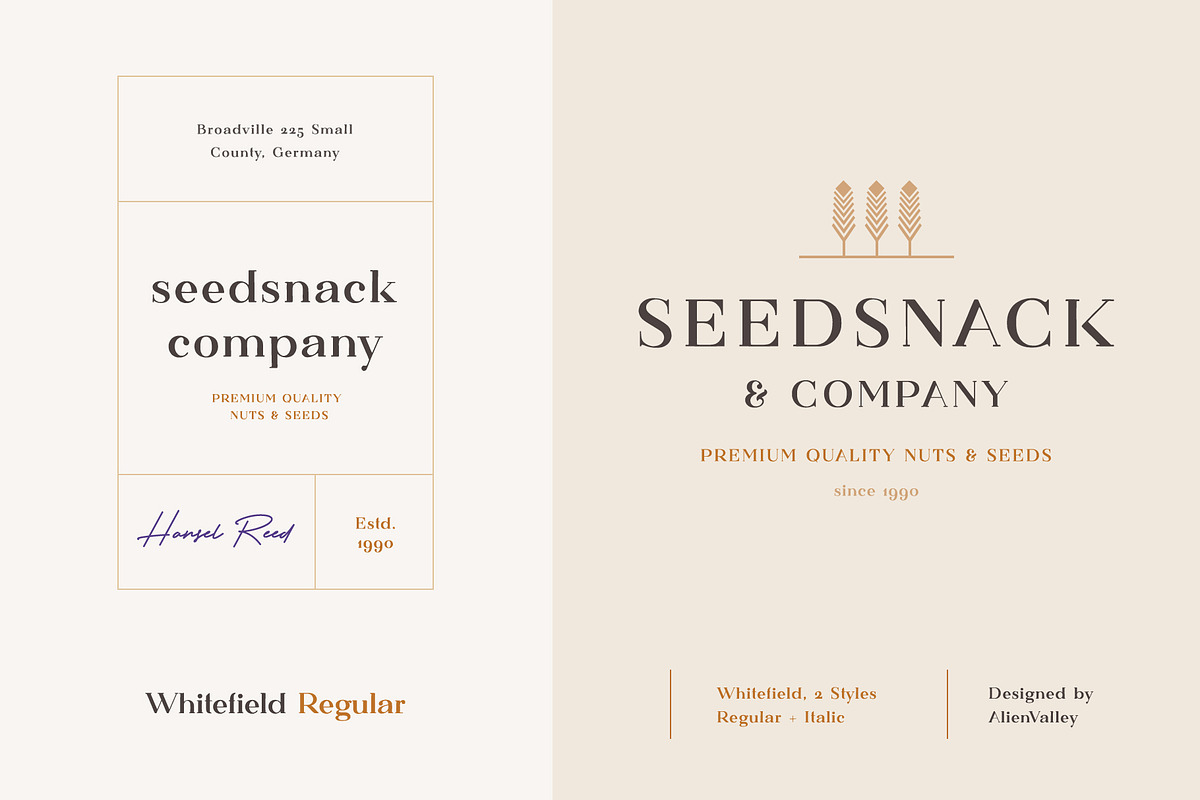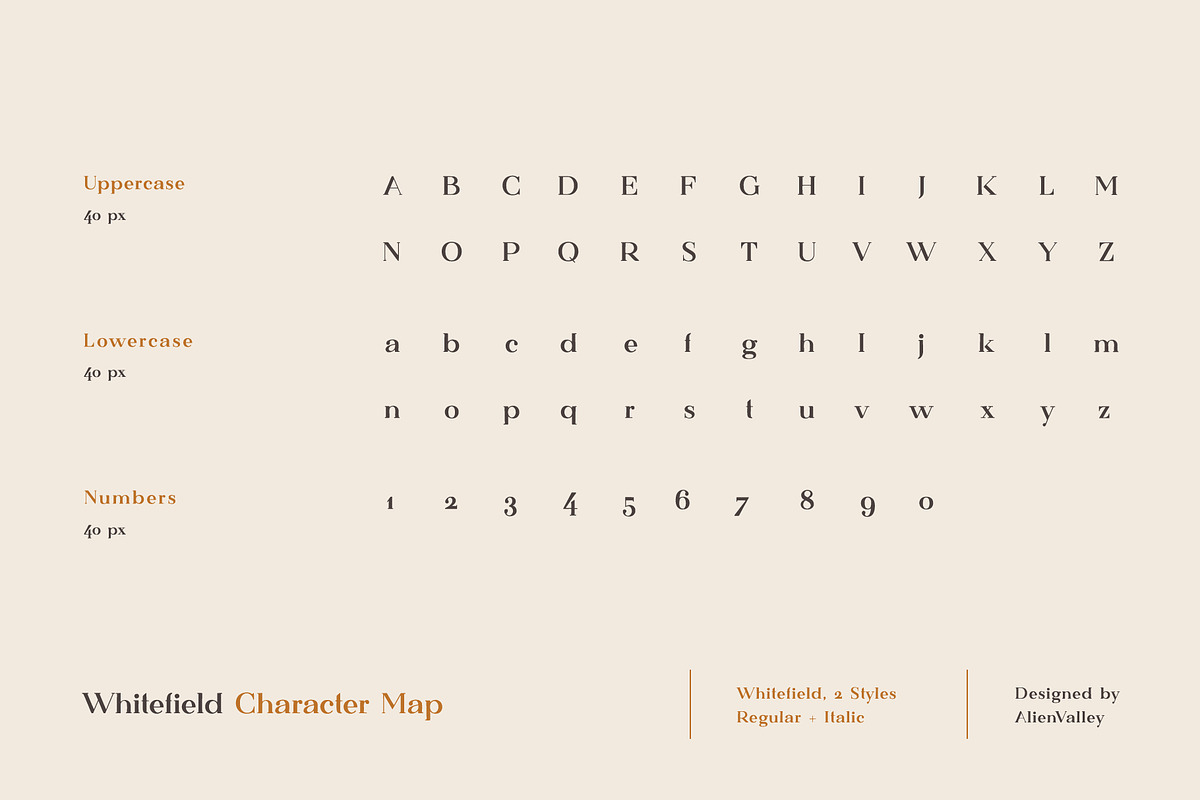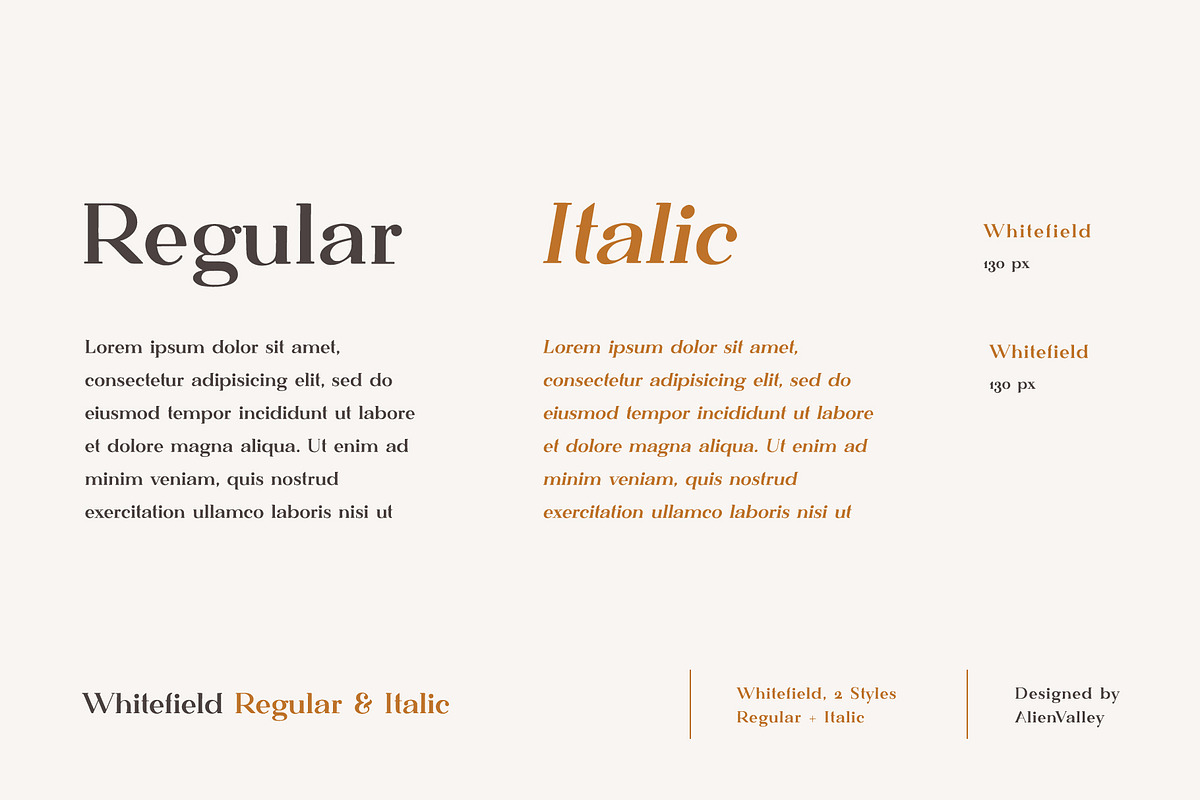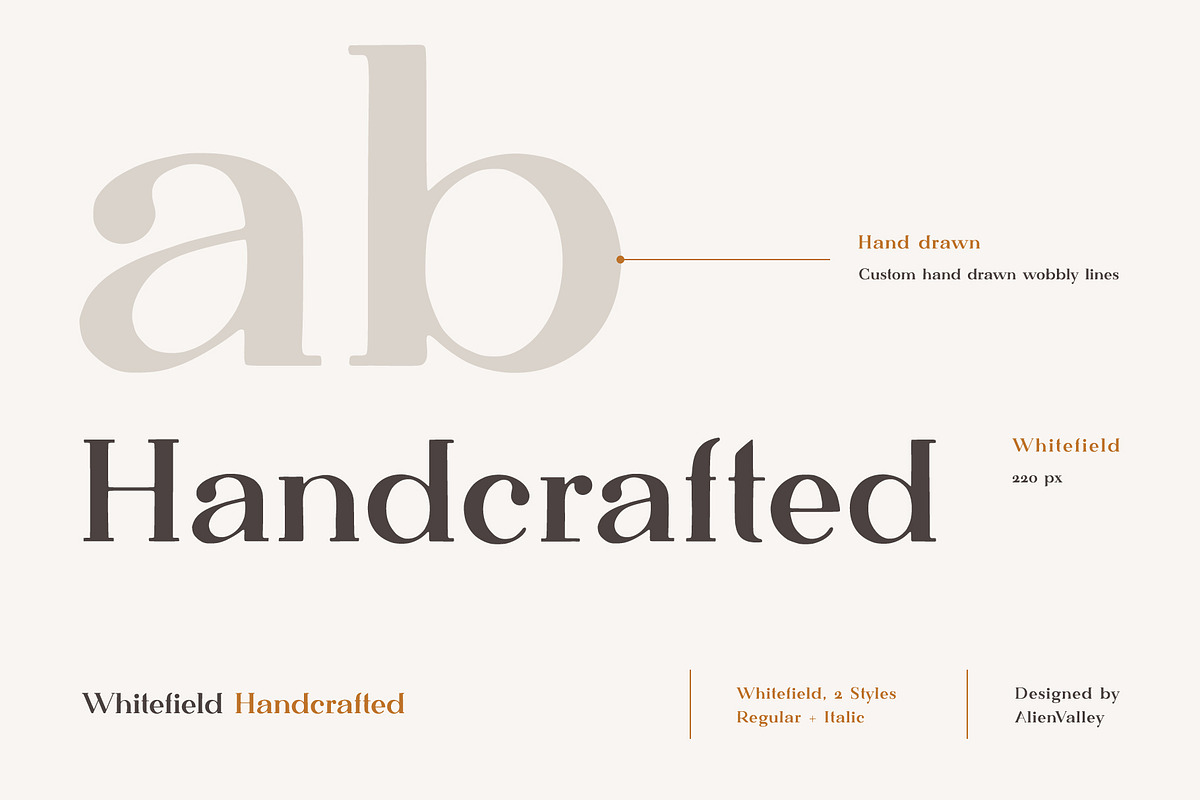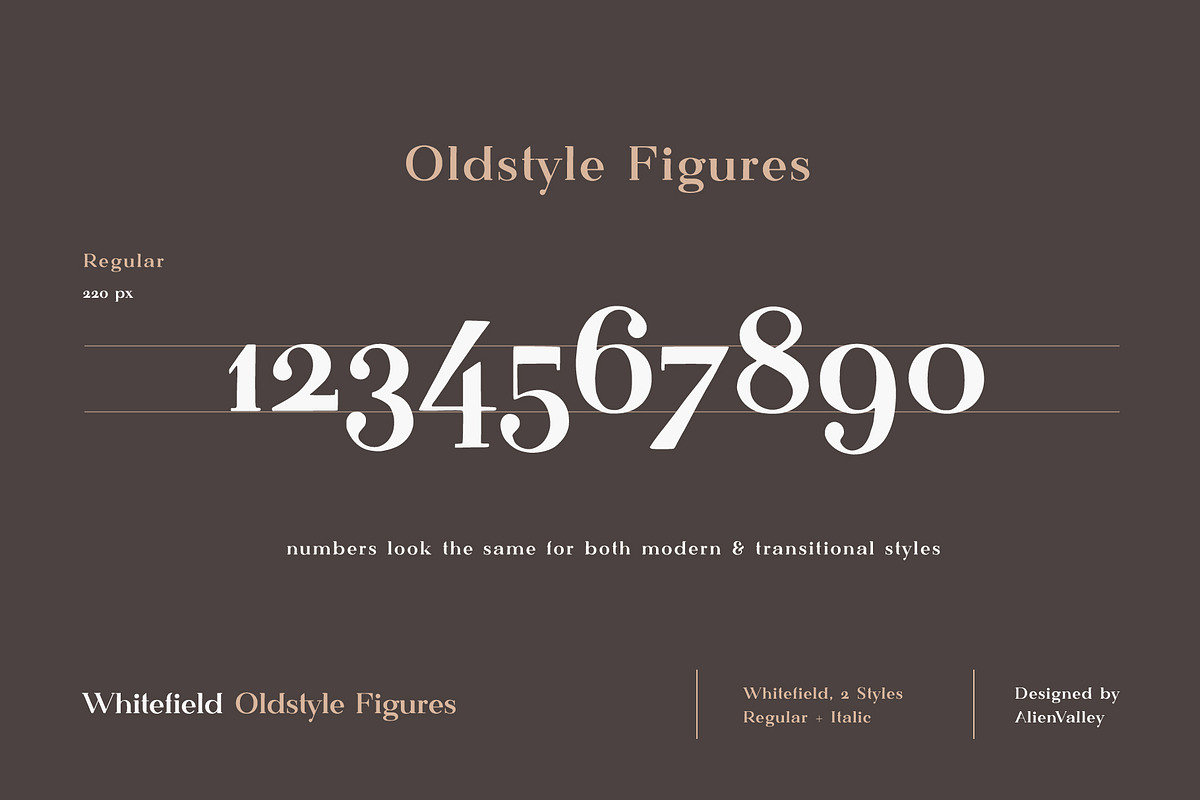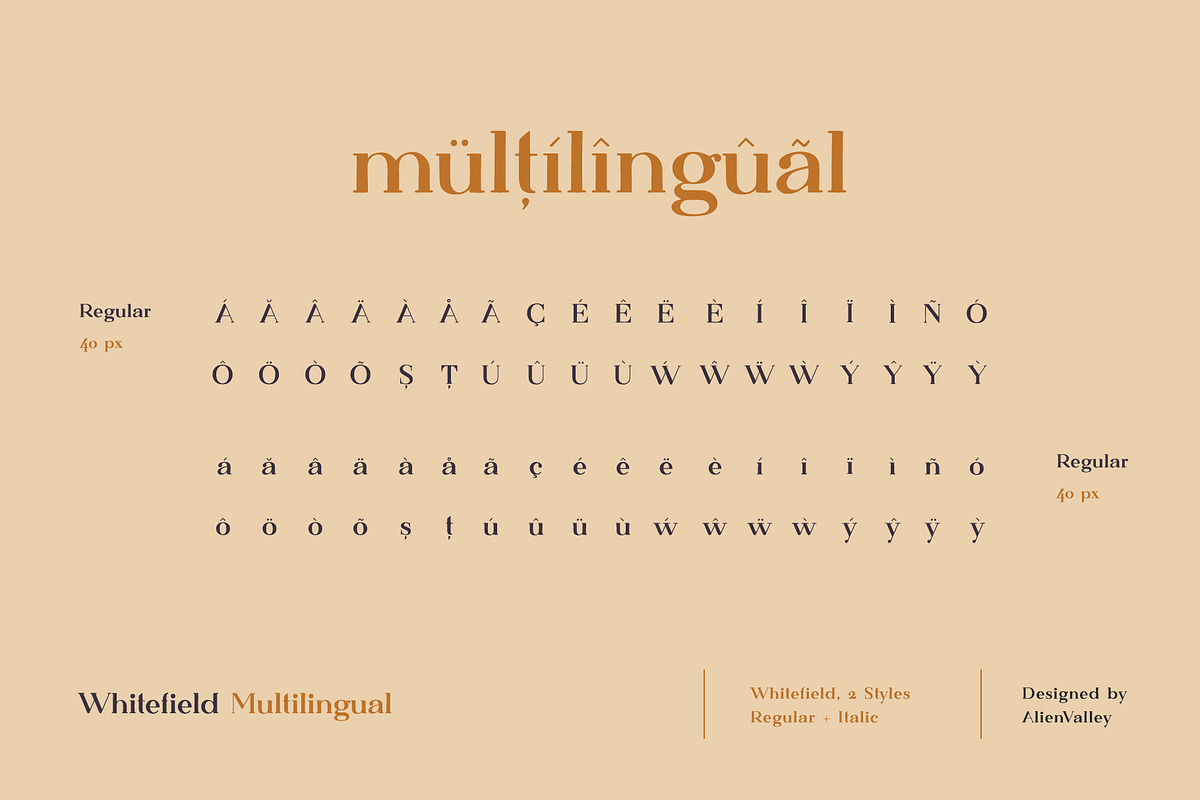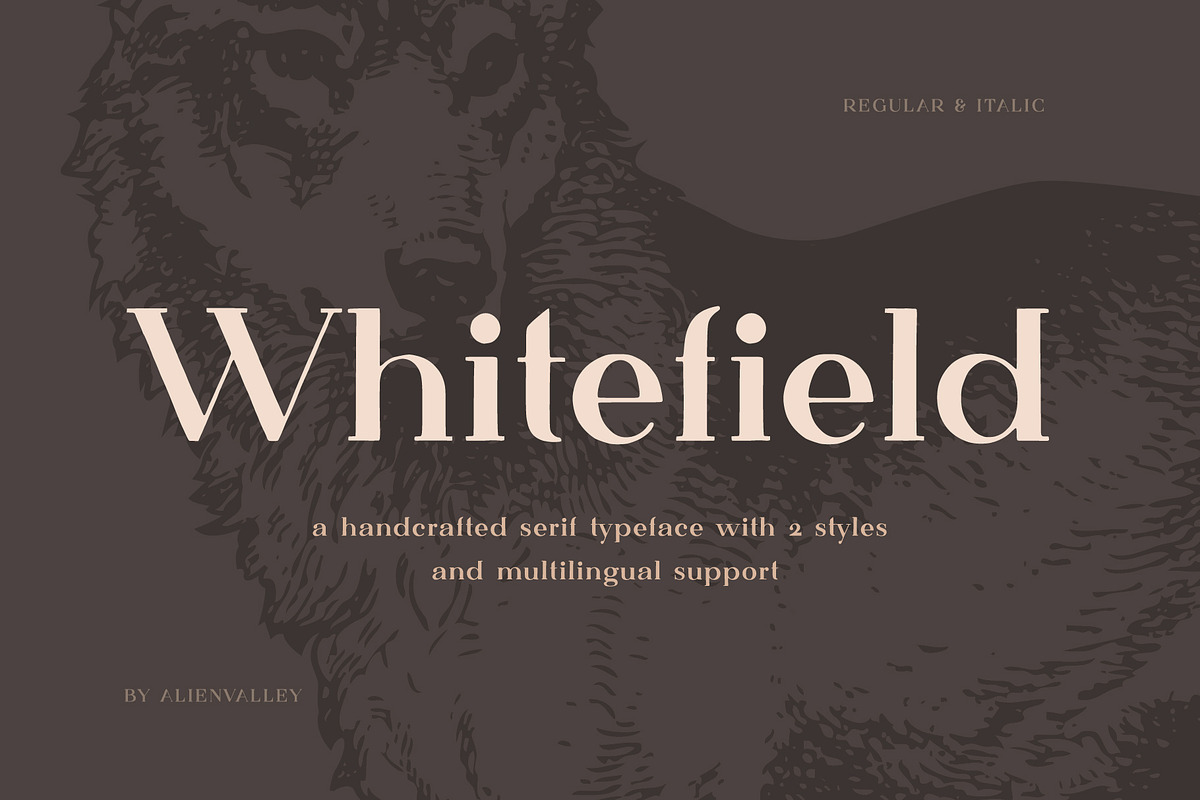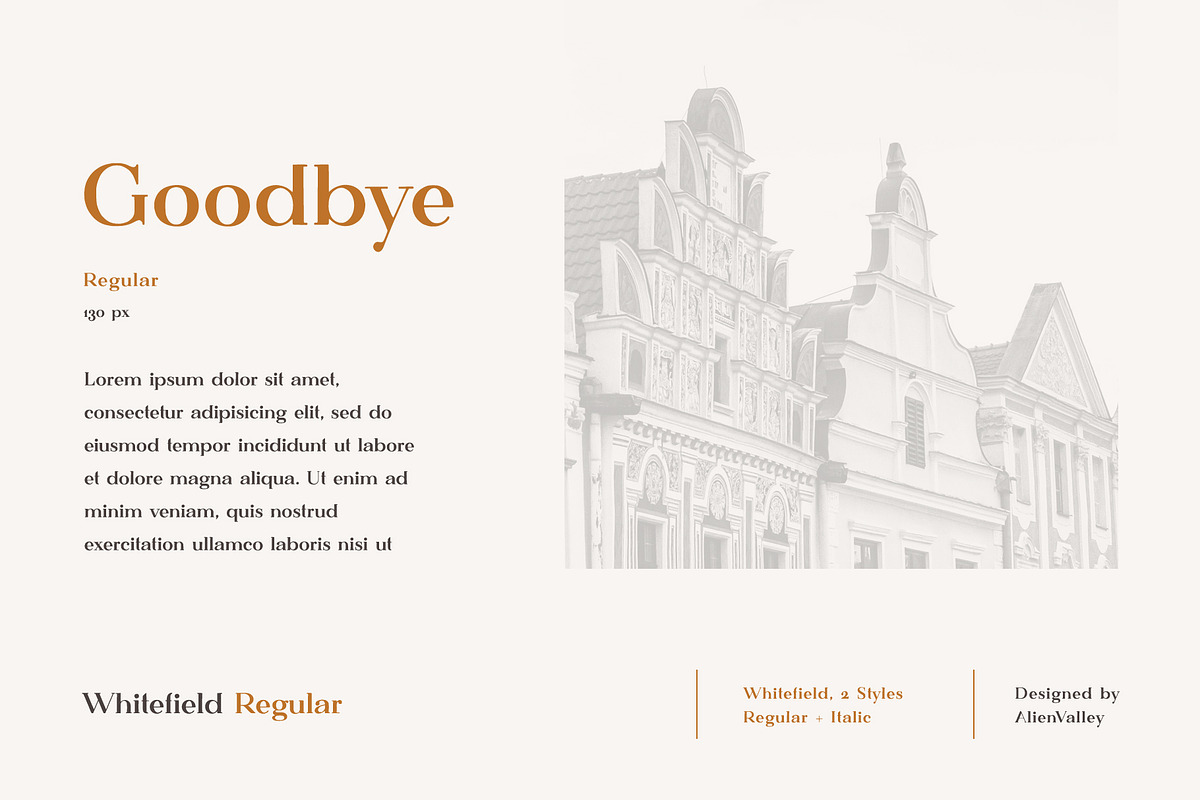
Whitefield - Handcrafted Serif
Whitefield is a handcrafted serif typeface inspired by one of our previous fonts, Greenmark, which was based on Finnmark. It's basically a serif version of Greenmark featuring thick, wide, hand drawn characters, custom designs for some letters like a & g and an uneven baseline for the numbers so they align better with lowercase letters.
It works great for both headlines and large amounts of text as you can see in the preview images.
- Hand-drawn characters
- 2 Styles (Regular, Italic)
- Oldstyle figures (uneven baseline for numbers)